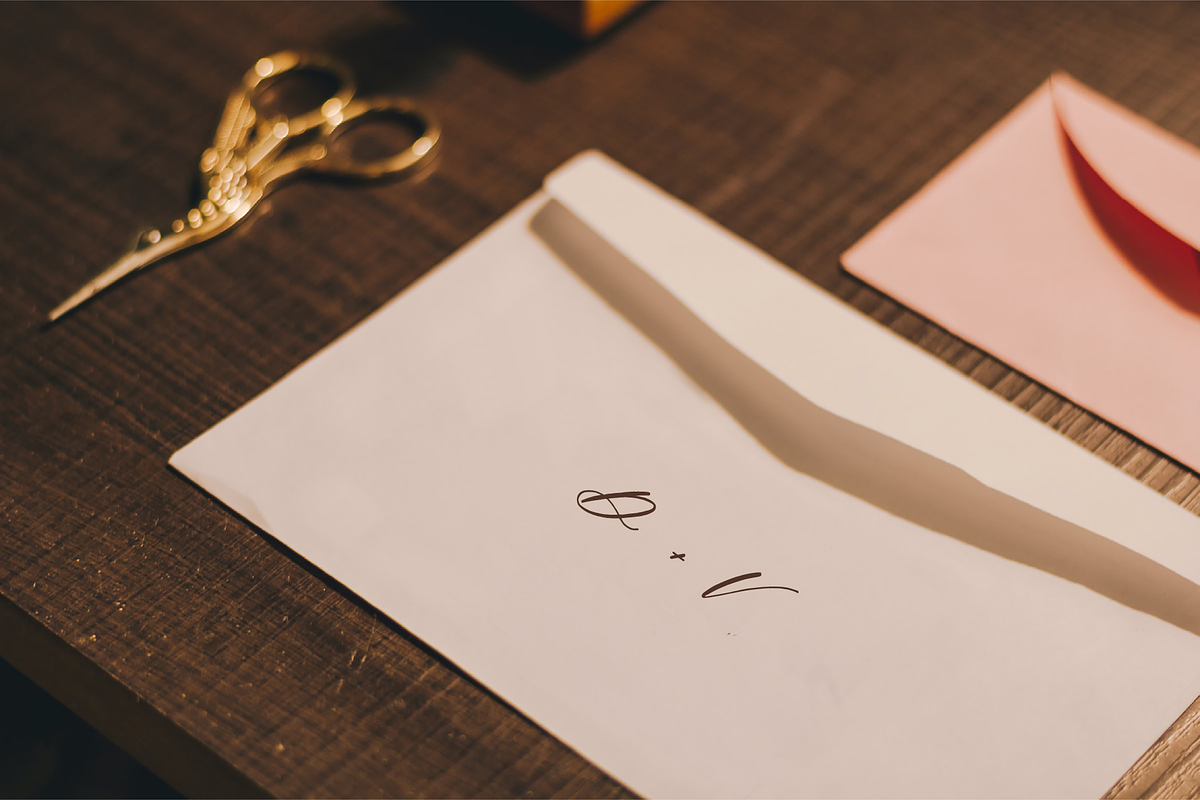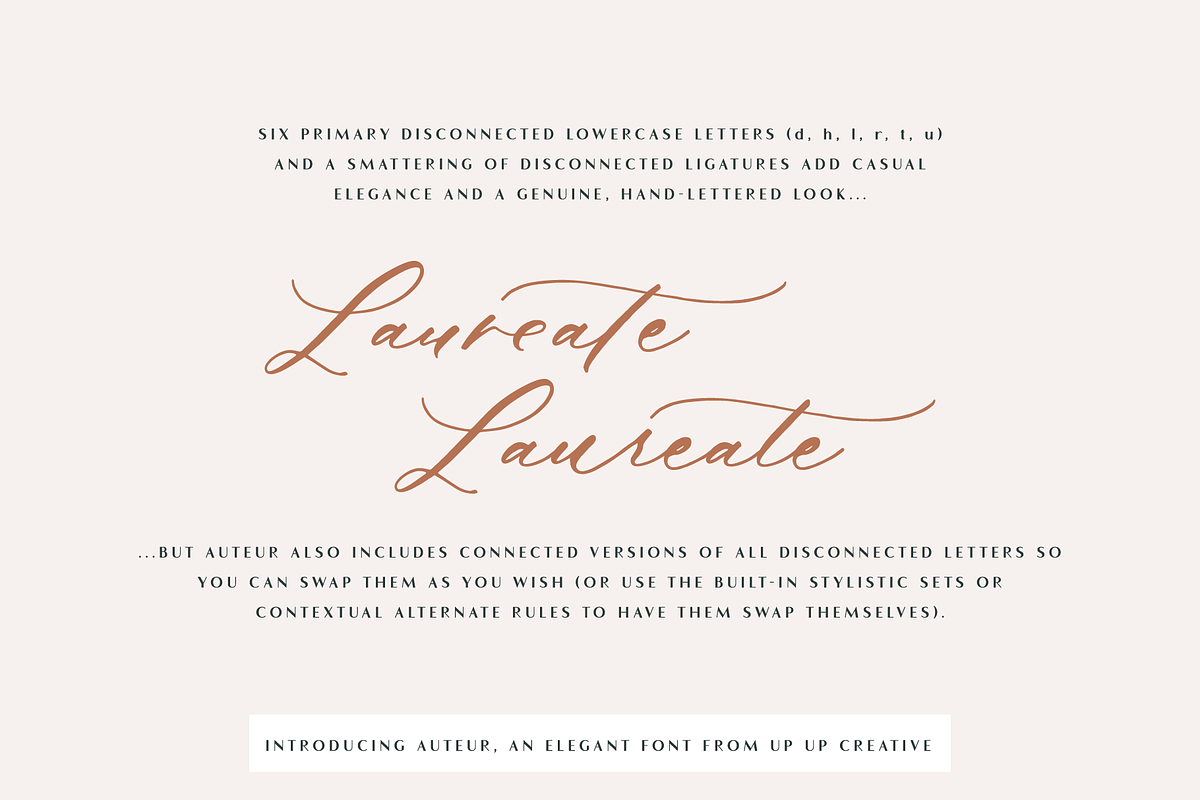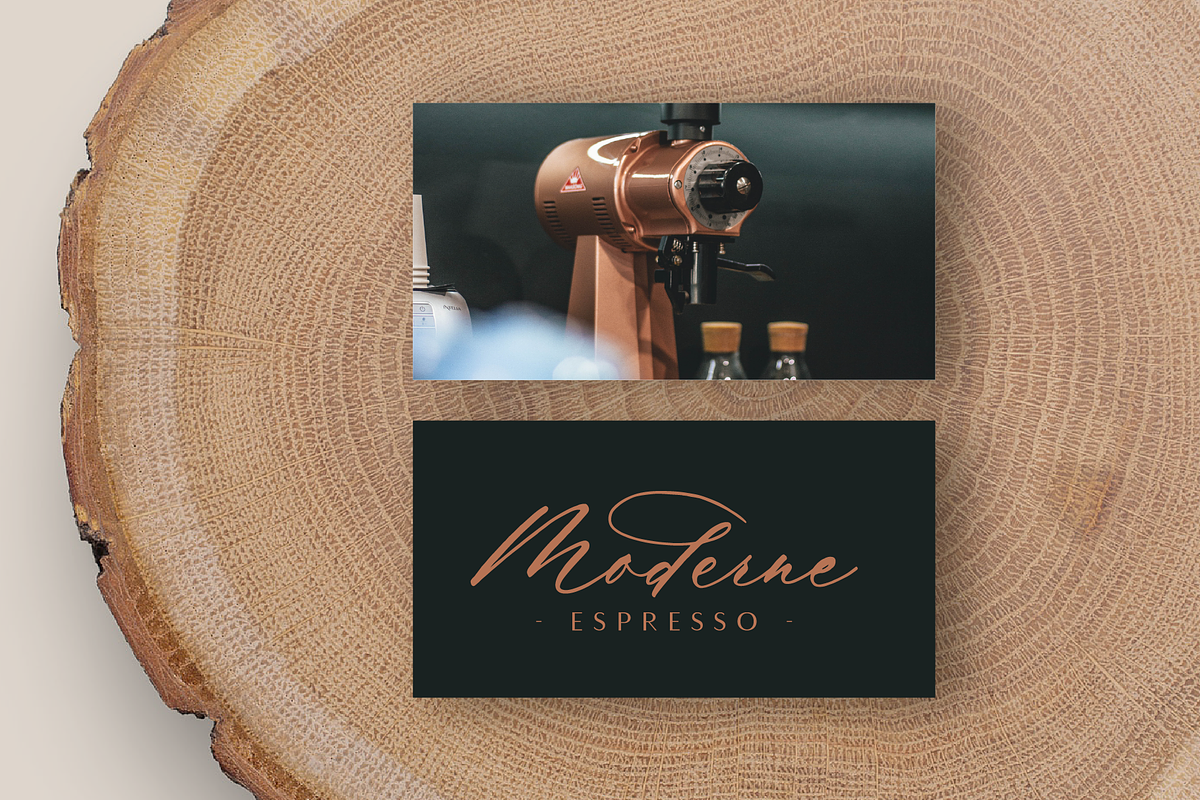
Introducing Auteur, a graceful, full-featured script font with tons of alternate characters and OpenType features. Hand-lettered with a heavy right slant and realistic disconnected letters (connected versions also included), Auteur’s casual elegance is particularly well-suited to invitations, branding, and editorial design.
Auteur comes with more than 1200 glyphs! Specific OpenType features include contextual alternates, stylistic alternates, optional initial and final forms, multiple alternate glyphs for many letters (accessed through the glyphs panel), multilingual support (including multiple currency symbols), ligatures, multiple numeral forms (standard, tabular, proportional oldstyle), and ten ampersand styles.
Perhaps the most fun thing about Auteur is that it includes multiple versions of all ascending and descending letters, making it lots of fun to play with layouts and compositions.